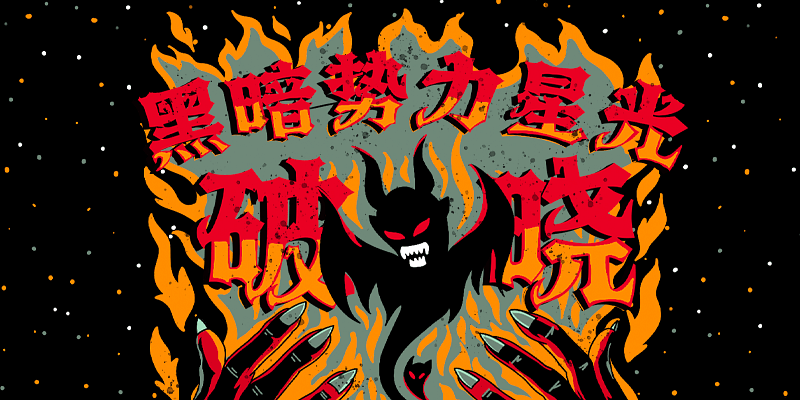
HelloFont ID Wang Zhe Feng Fan Font Free Download is a bold, commanding Chinese display font inspired by heroic energy and dramatic calligraphy. The name “Wang Zhe Feng Fan” (王者风范) translates to “Kingly Style” or “Regal Presence,” and this typeface truly embodies that with its powerful strokes, sharp angles, and dynamic brushwork. It’s an excellent choice for game titles, martial arts posters, esports branding, cinematic designs, or any project that demands strength, honor, and impact.
HelloFont ID Wang Zhe Feng Fan Font Free Download mimics the feel of traditional Chinese brush calligraphy, but with a modern edge that makes it perfect for contemporary storytelling. The sweeping curves and bold textures give the font a dramatic flair, making it especially effective in headlines, logos, and expressive typographic compositions.
With full support for simplified Chinese characters and a basic Latin character set, this font works well in both monolingual and bilingual designs that aim to convey boldness and cultural depth.
Heroic, striking, and full of spirit—HelloFont ID Wang Zhe Feng Fan is the ultimate typeface when your design needs to project confidence, power, and visual drama.